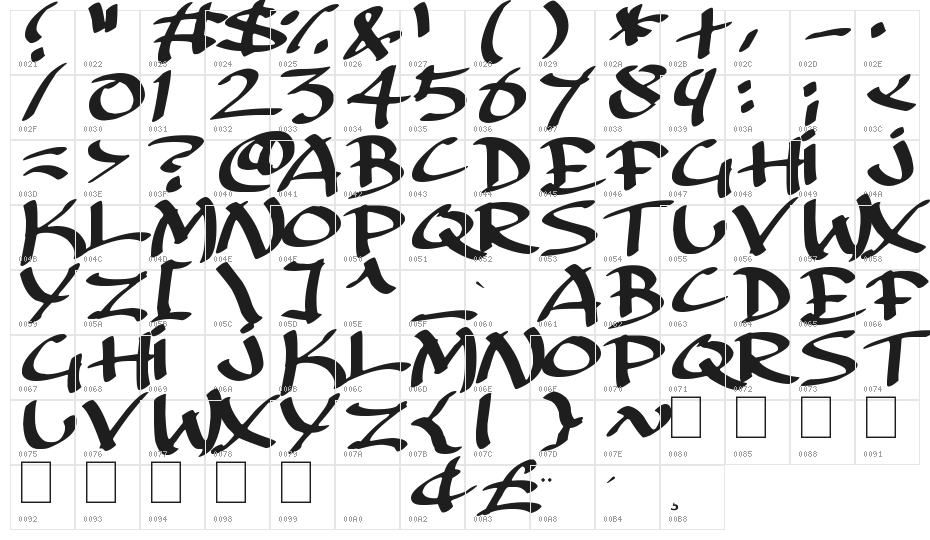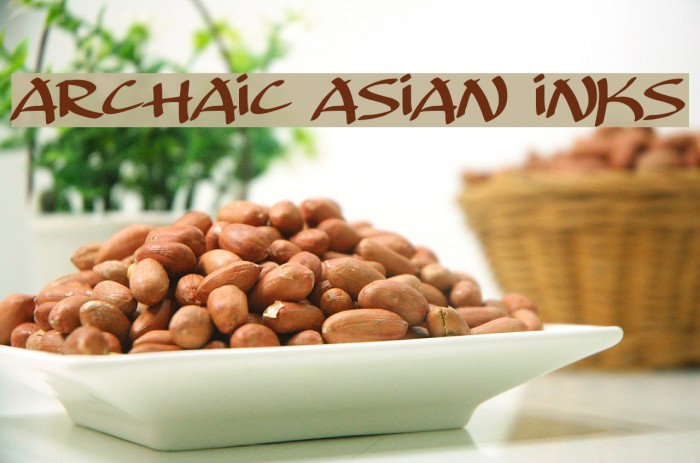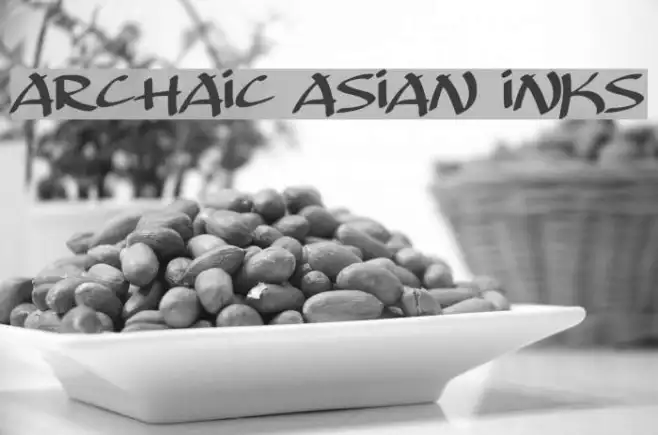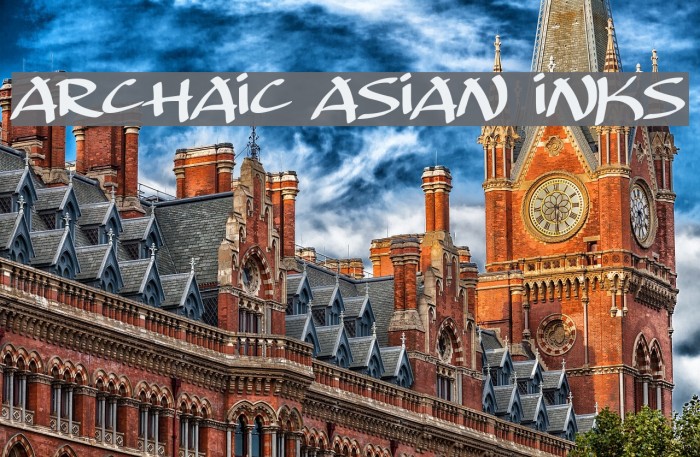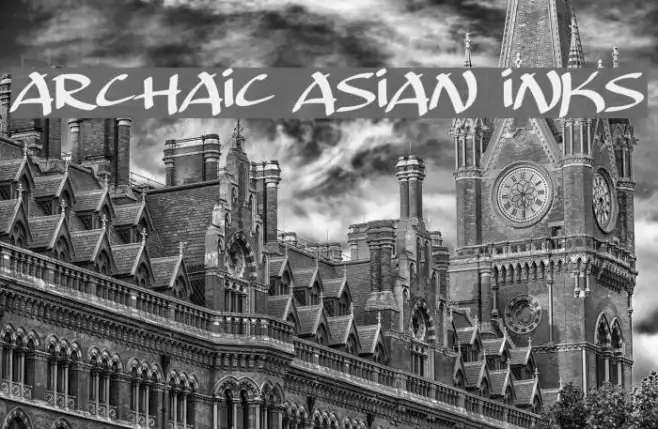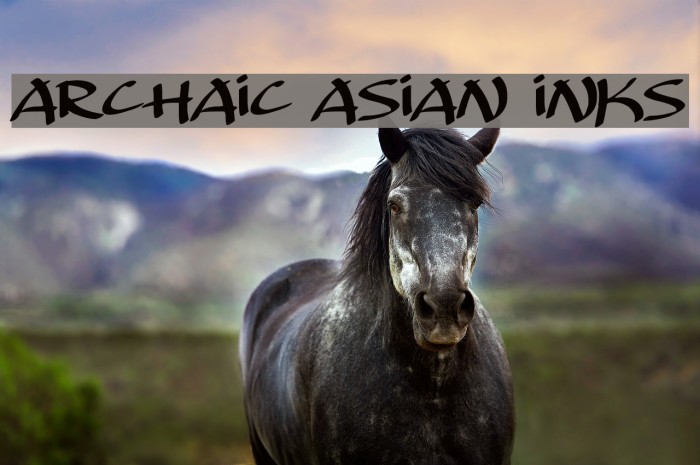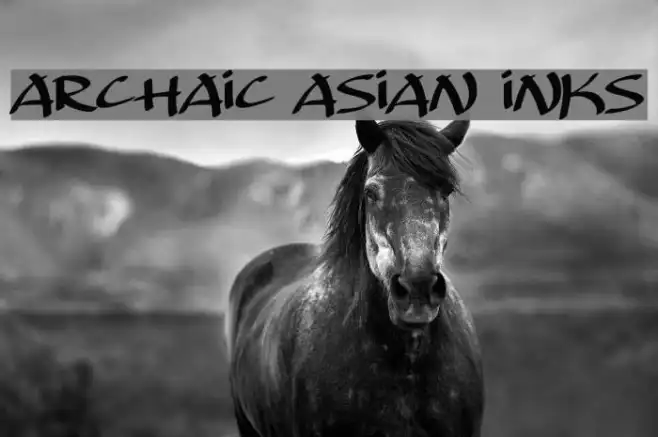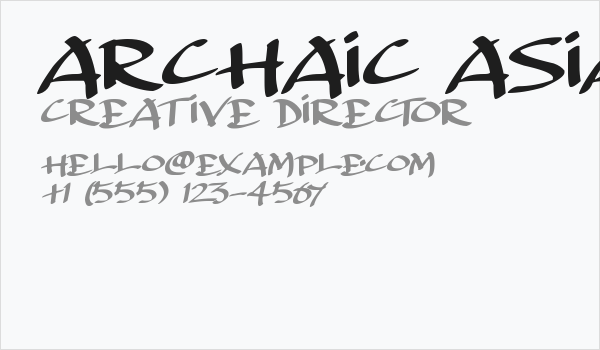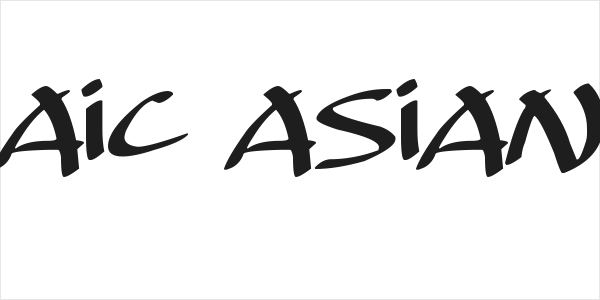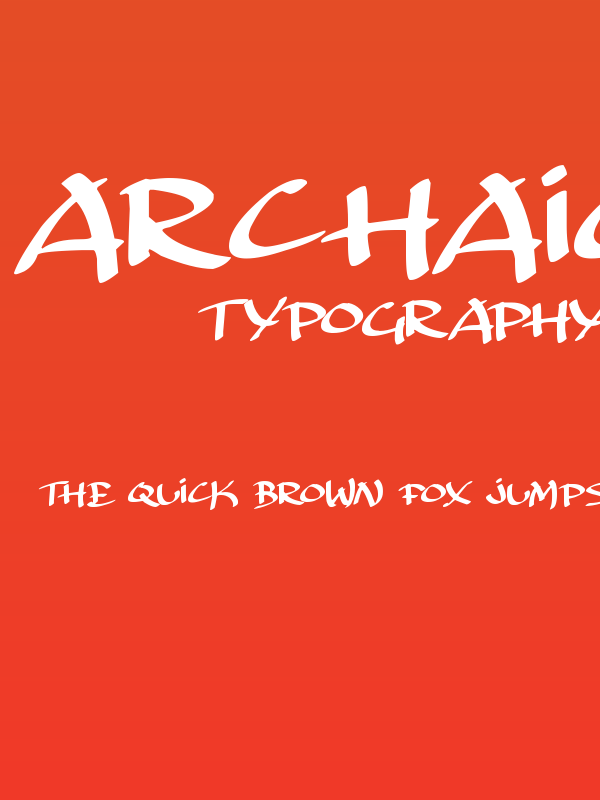
Archaic Asian Inks Font
Archaic Asian Inks Description
This font features a bold and dynamic style reminiscent of traditional Asian calligraphy. The strokes are thick and expressive, with a fluid motion that suggests hand-drawn ink. Each character has a unique flair, with varying stroke widths that add to its artistic appeal. The uppercase and lowercase letters maintain a consistent style, while the numerals and special characters complement the overall aesthetic. This font's design is both striking and elegant, making it suitable for projects that require a touch of cultural sophistication.
| Proposed Projects | Ideal for use in branding, posters, cultural event materials, and artistic projects that require an Asian-inspired aesthetic. |